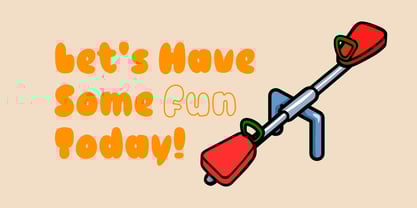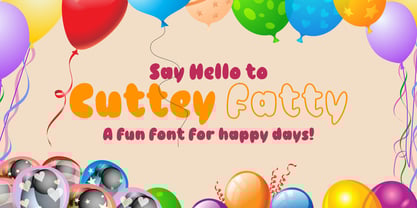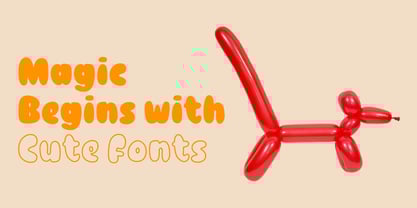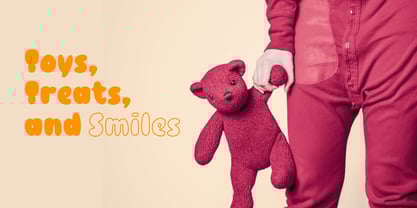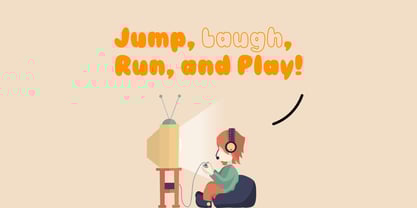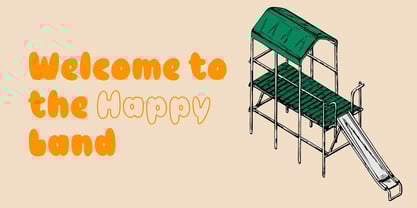
Cuttey Fatty
The Cuttey Fatty Font Family was designed by Wahyu Eka Prasetya, Dian Angga Marytama and published by Letterytz CalliType. Cuttey Fatty contains 2 styles and family package options. More about this family
Cuttey Fatty – A Cute & Chunky Fun Font!
Say hello to Cuttey Fatty, a playful and bold display font that’s bursting with charm and happiness! With its soft curves, chunky shapes, and hand-drawn personality, Cuttey Fatty is perfect for all things fun and cheerful.
Whether you're designing for kids’ events, party invitations, toy packaging, birthday merch, or playful branding — this font brings a smile to every project.
Now available in two fun styles:
- Cuttey Fatty Regular – solid, bold, and full of energy
- Cuttey Fatty Outline – light, airy, and creatively versatile
Font Features
• Uppercase & lowercase
• Numbers & punctuation
• Fun alternates
• Two styles: Regular & Outline
• Smooth and clean curves (perfect for print & digital)
Perfect For:
• Kids party posters
• Storybook titles
• Toy branding
• School materials
• Craft projects
• Greeting cards
• Social media graphics
• Birthday invitations
Designers: Wahyu Eka Prasetya, Dian Angga Marytama
Foundry: Letterytz CalliType